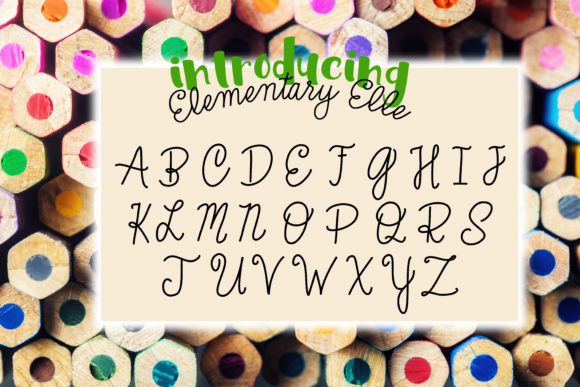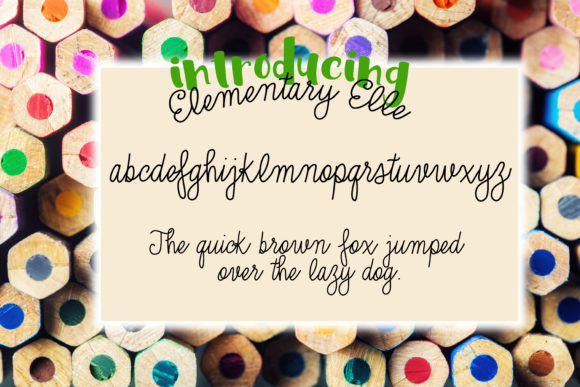
Introducing Elementary Elle Font: A Timeless Classic for Educational Projects
Are you looking for a font that will transport you back to the good old days of elementary school? Look no further than Elementary Elle Font! This classic script font is perfect for any educational projects, and we’re excited to dive into its features and benefits.
What is Elementary Elle Font?
Elementary Elle Font is a beautifully designed script font that exudes a sense of nostalgia and simplicity. Its classic design makes it an excellent choice for projects that require a touch of vintage charm. Whether you’re working on a educational website, a school brochure, or a craft project, Elementary Elle Font is sure to impress.
Key Features of Elementary Elle Font
- Classic Script Design: Elementary Elle Font boasts a traditional script design that’s reminiscent of the fonts used in old textbooks and educational materials.
- Easy to Read: The font is clear and legible, making it perfect for body text and headings.
- Versatile: Elementary Elle Font can be used for a wide range of projects, from educational materials to craft projects and more.
- High-Quality: The font is designed with high-quality and precision, ensuring that it looks great in any context.
Why Use Elementary Elle Font?
So, why should you choose Elementary Elle Font for your next project? Here are just a few reasons:
- Evokes Nostalgia: The font’s classic design is sure to evoke memories of elementary school days, making it perfect for educational projects.
- Professional Look: Despite its vintage design, Elementary Elle Font looks professional and polished, making it suitable for a wide range of applications.
- Eases Readability: The font’s clear and legible design ensures that your text is easy to read, even for younger audiences.
- Customizable: Elementary Elle Font can be easily customized to fit your project’s specific needs, from adjusting font sizes to adding effects.
How to Use Elementary Elle Font
Design and Craft Inspiration
Elementary Elle Font is a versatile font that can be used for a wide range of design and craft projects. Here are a few ideas to get you started:
- Educational Materials: Use Elementary Elle Font to create educational materials like worksheets, activity sheets, and more.
- Craft Projects: The font is perfect for craft projects like scrapbooking, card making, and journaling.
- Web Design: Use Elementary Elle Font to add a touch of vintage charm to your website or blog.
In conclusion, Elementary Elle Font is a timeless classic that’s perfect for any educational projects. Its clear and legible design, versatile features, and nostalgic charm make it an excellent choice for designers and crafters alike. Whether you’re working on a educational website, a school brochure, or a craft project, Elementary Elle Font is sure to impress. So why not give it a try and see the difference it can make in your next project?